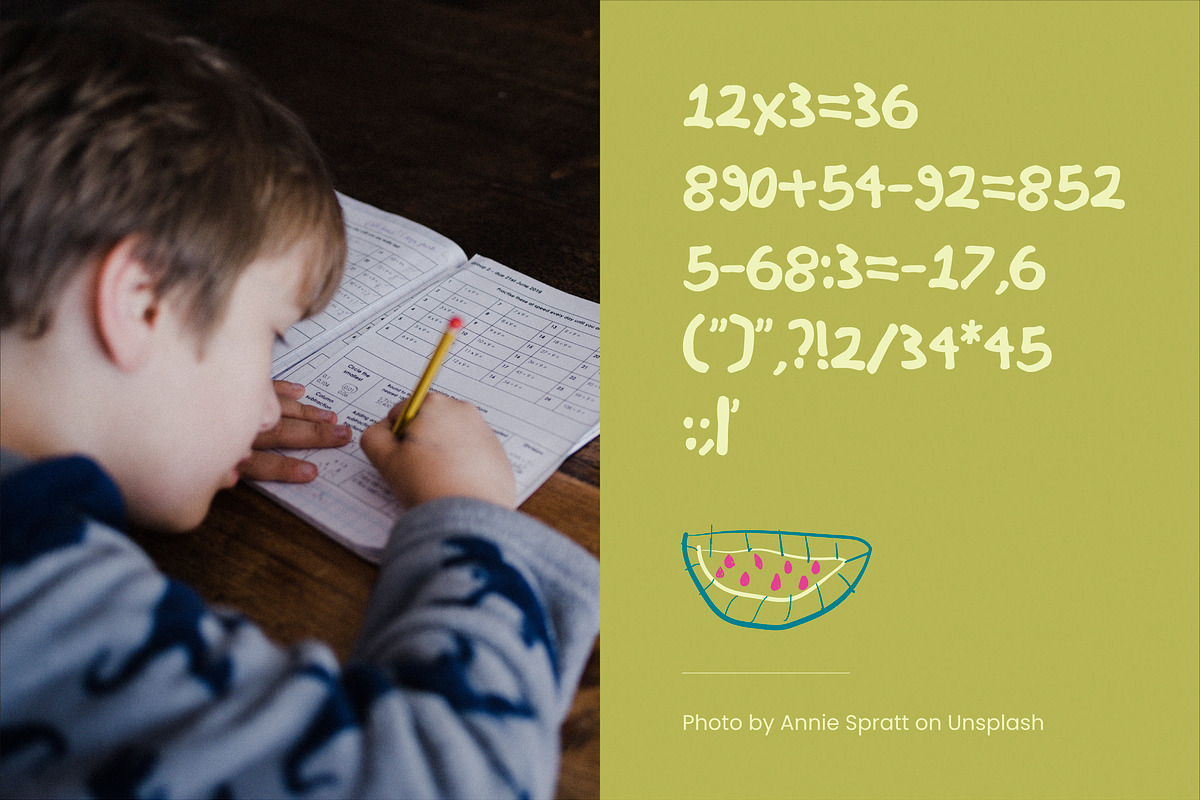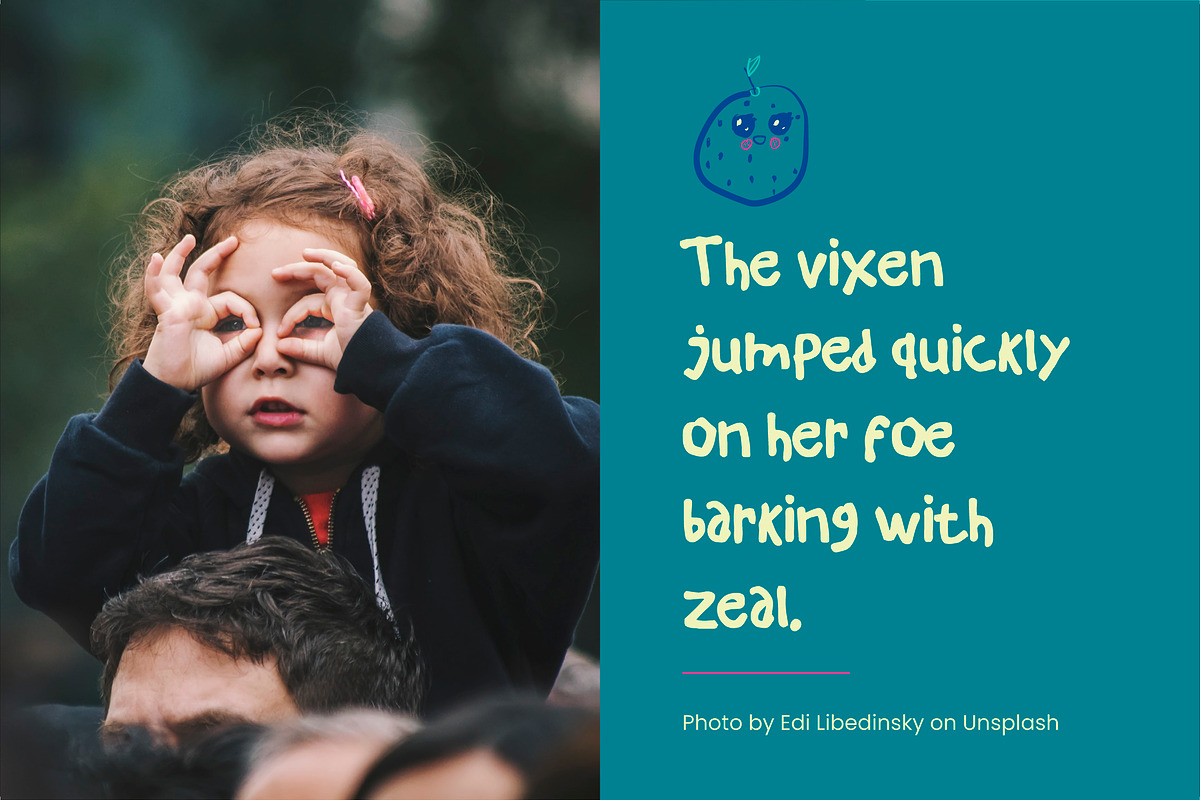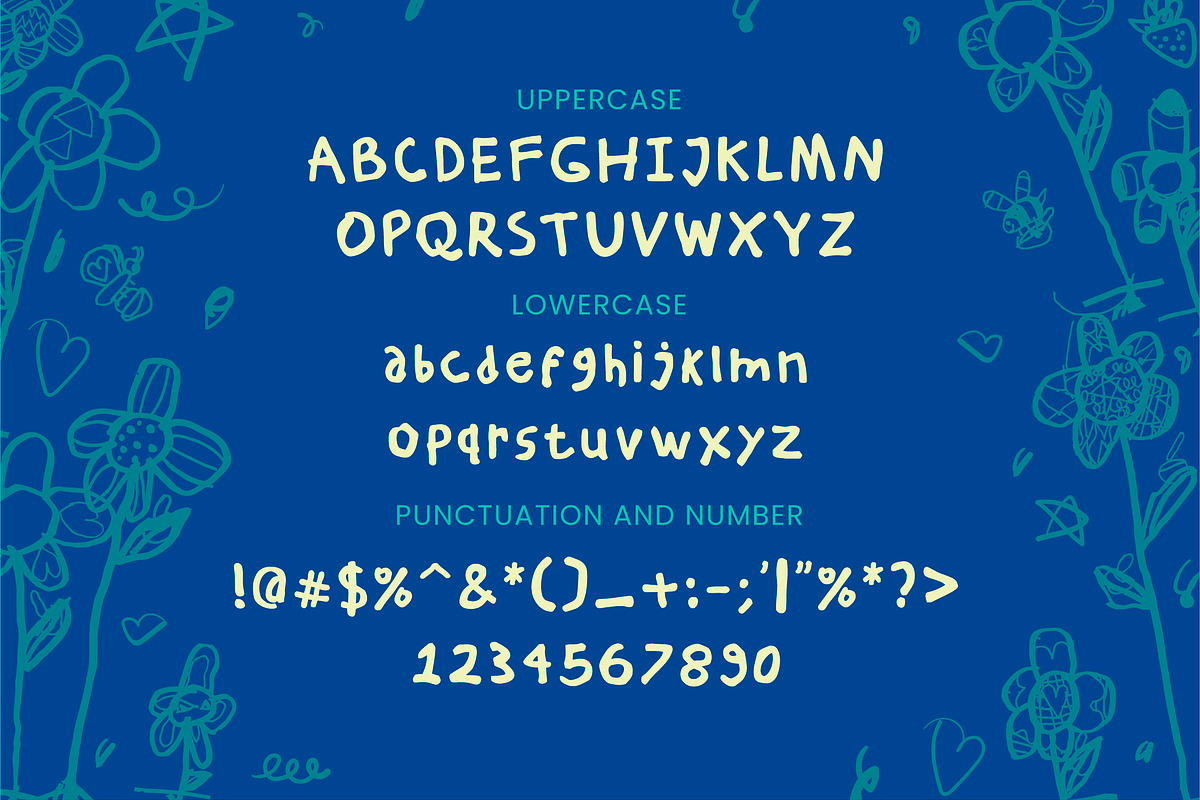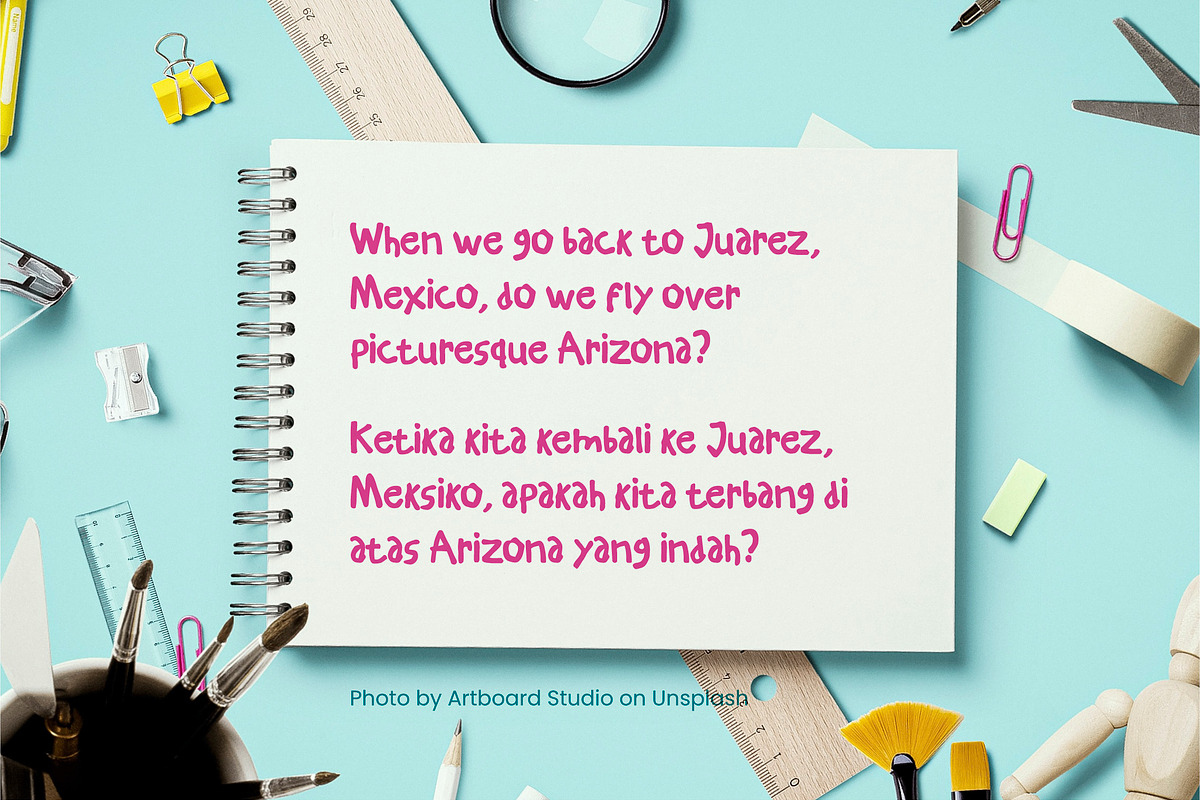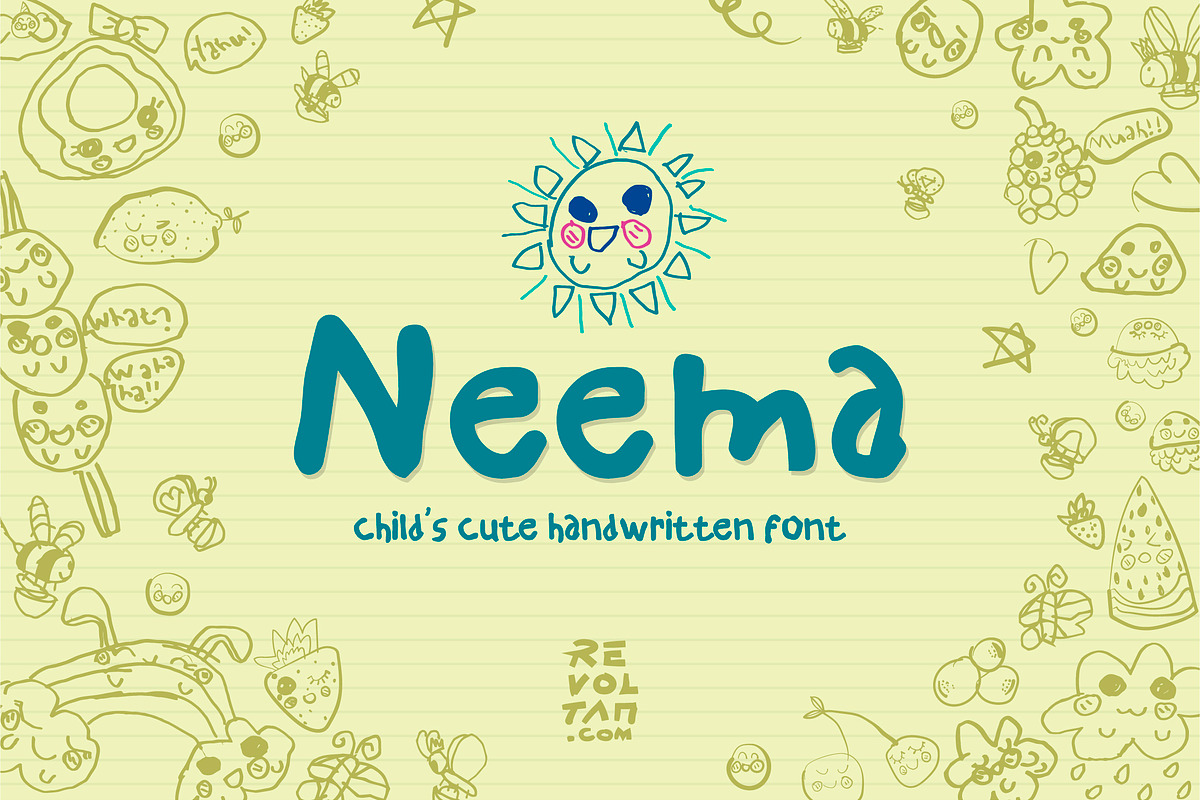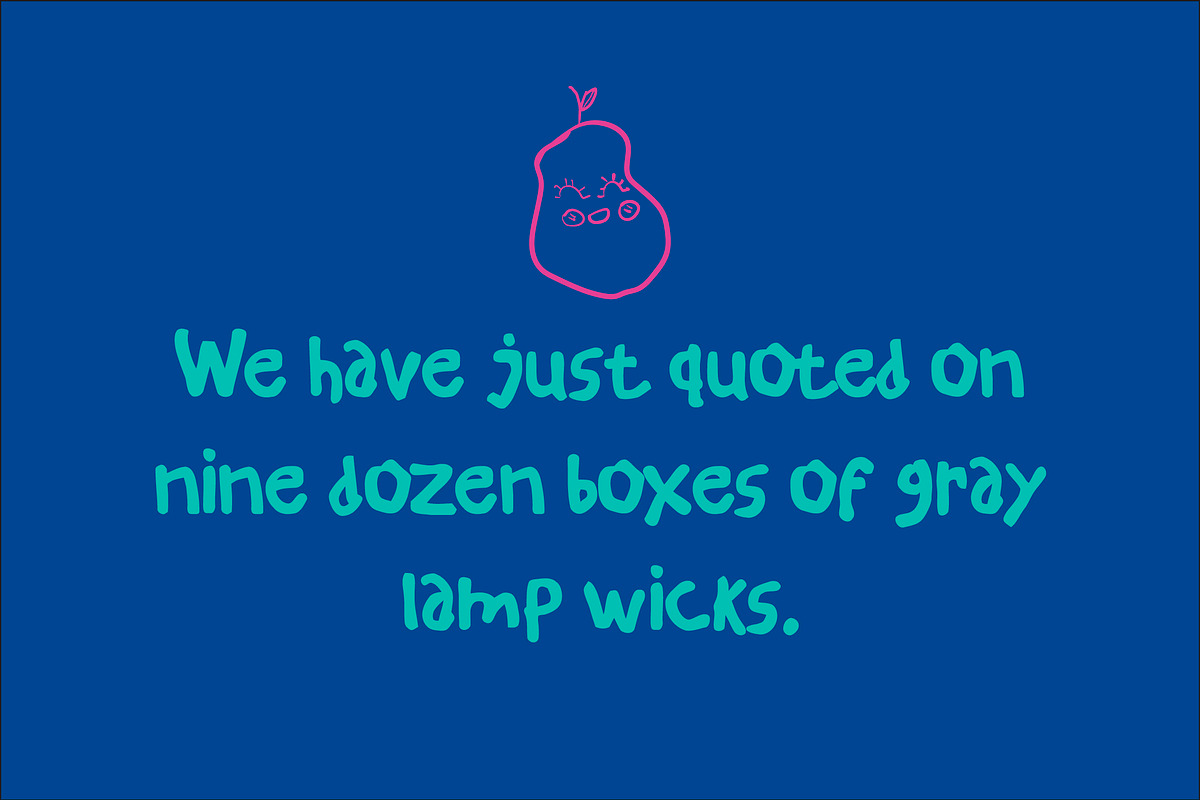
NEEMA - Child's Cute Handwritten
Neema is a hand lettered sans typeface. It has the organic feel of children's scribbles, suitable for brands related to children, social media posts, children’s books, posters, party invitations, baby showers, birthday cards, marketing and more. Made directly from real children's handwriting, then scanned and assembled into a font.